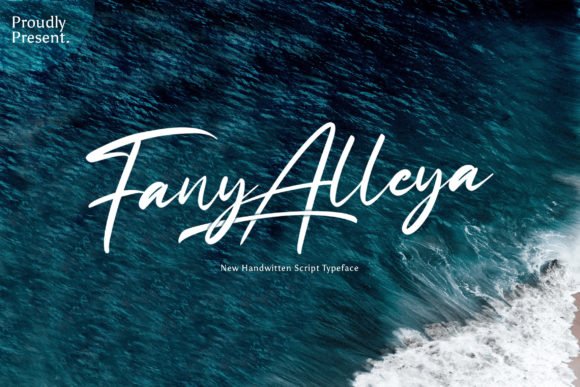
Bring Your Designs to Life with Fany Alleya Font
As a designer, there’s nothing quite like the thrill of seeing a project come together. The hours of brainstorming, sketching, and tweaking all culminate in a moment of pure creative satisfaction – the moment when your design finally feels alive. It’s a feeling that’s hard to replicate, but one thing that often helps is finding the perfect font to bring your vision to life.
That’s where Fany Alleya Font comes in – a delicate, well-balanced, and adaptable handwritten font that’s perfect for designers looking to add a touch of elegance to their creations. With its beautiful characters, Fany Alleya Font is versatile enough to match a wide pool of designs, making it a valuable addition to any designer’s toolkit.
Fany Alleya Font Key Features
- Font Family: Fany Alleya Font is a unique, hand-drawn font with a personal touch.
- Size: The font comes in 5 different font sizes, ranging from 12pt to 72pt, making it versatile for various design applications.
- Resolution: Supports high-resolution printing and digital display with a minimum resolution of 300 DPI.
- Unique Characteristics: Fany Alleya Font features intricate details, swashes, and ligatures, adding an artistic flair to any design.
Fany Alleya Font Review
Overall, I think Fany Alleya is a decent font, but it has its ups and downs. ✨ One of the things that works well is its unique blend of modern and vintage elements. It has a distinctive flair that’s perfect for creative projects or brands that want to stand out.
Another advantage of Fany Alleya is its versatility. ✨ It comes in a range of weights and styles, making it easy to use in different contexts. Whether you’re creating a logo, a title, or a body of text, there’s a version of Fany Alleya that’s sure to fit the bill.
However, Fany Alleya is not without its limitations. ⚠️ For one thing, the font can be a bit difficult to read at smaller sizes. This is especially true for the thinner weights, which can become hard to distinguish at very small sizes.
Additionally, some users may find the font’s distinctive flair a bit too much. ⚠️ While it’s perfect for some projects, it may not be the best choice for more straightforward or professional contexts.
In conclusion, Fany Alleya is a solid choice for designers who want a unique and versatile font. While it may not be perfect for every project, it’s a great option for those who want to add a bit of flair to their designs.
- Unique blend of modern and vintage elements
- Highly versatile
- Range of weights and styles
- Difficult to read at smaller sizes
- Distinctive flair may be too much for some users
Getting the Most Out of Fany Alleya Font
To get the most out of Fany Alleya Font, try using it in bold or italic styles to add emphasis to your text.
Experiment with different font sizes and colors to create a unique visual effect.
Fany Alleya Font is ideal for:
- Designing invitations and event materials.
- Creating social media graphics and posts.
- Adding a touch of elegance to business reports and presentations.
Alternatives to Fany Alleya Font
Playfair Display is a luxurious and elegant serif font, ideal for use in high-end branding, invitations, and luxury product labels. Its classic and sophisticated design makes it perfect for creating a sense of refinement and sophistication.
Compared to Fany Alleya Font, Playfair Display has a more traditional and classic feel, whereas Fany Alleya Font has a more modern and quirky design.
Great Vibes is a beautiful and elegant script font, perfect for use in wedding invitations, event branding, and other creative projects. Its flowing and cursive design makes it ideal for adding a touch of whimsy and romance to your designs.
Compared to Fany Alleya Font, Great Vibes has a more flowing and cursive design, whereas Fany Alleya Font has a more geometric and modern feel.
Carolyna Pro is a modern and sophisticated serif font, ideal for use in editorial design, branding, and advertising. Its clean and elegant design makes it perfect for creating a sense of sophistication and refinement.
Compared to Fany Alleya Font, Carolyna Pro has a more modern and sleek design, whereas Fany Alleya Font has a more playful and quirky feel.